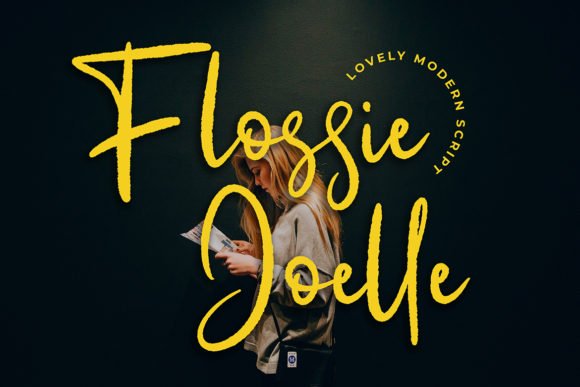
Get Inspired by the Unique Charm of Flossie Joelle Font
Have you ever been brainstorming a design project, and suddenly, a spark of creativity hits you? Maybe it’s the perfect font that makes your entire concept come together. For many designers, that moment is what drives them to create something truly special. And for those who love modern script fonts, Flossie Joelle Font is about to become their new obsession.
This beautiful font exudes a sense of elegance and authenticity, making it perfect for a wide range of projects, from wedding invitations to branding materials. Its unique charm is sure to captivate your audience and leave a lasting impression. As a designer, you’ll appreciate the versatility and flexibility of Flossie Joelle Font, which can be used in various settings, from formal events to casual gatherings.
Flossie Joelle Font Key Features
- Font Family: Flossie Joelle Font
- Font Style: Script, Handwritten
- Character Set: Latin, Cyrillic, Greek, Extended Latin
- Unique Characteristics: Includes 500+ glyphs, supports various languages, and has a natural, flowing feel
Flossie Joelle Font Review
I recently had the chance to work with the Flossie Joelle Font, and I must say it’s been an interesting experience. Here’s my honest review.
- Beautiful, hand-drawn illustrations and flourishes add a touch of elegance to any design.
- Unique and quirky feel makes it perfect for brands that want to stand out from the crowd.
- Comes with a wide range of weights and styles, making it versatile and easy to use.
- High-quality font files ensure smooth performance in various design applications.
- Some characters may not be fully compatible with certain font sizes or styles.
- Lower legibility in small text sizes may require additional adjustments.
- May not be suitable for professional or formal designs, as its playful nature may be seen as unprofessional.
The Flossie Joelle Font is perfect for creatives who want to add a touch of whimsy and personality to their designs. While it has its limitations, the unique charm and versatility of this font make it a great addition to any designer’s toolkit.
Flossie Joelle Font Practical Application Guide
Use Flossie Joelle in conjunction with other elegant fonts to create a sophisticated look.
Experiment with different font sizes and styles to add visual interest.
Consider using Flossie Joelle for titles, headings, and other prominent text elements.
Flossie Joelle is perfect for:
Branding and marketing materials
Digital and print publications
Social media graphics and posts
Lato is a sans-serif font that is clean, modern, and highly legible. It is ideal for use in body text, headings, and titles where a clear and concise message is required. Lato is a versatile font that works well in both print and digital media.
Compared to Flossie Joelle Font, Lato has a more minimalist and contemporary feel, while Flossie Joelle Font has a softer, more feminine touch.
Playfair Display is a luxurious, high-end serif font that is perfect for use in titles, headings, and other display text where a sense of elegance and sophistication is required. It is ideal for use in high-end branding, advertising, and editorial projects.
Compared to Flossie Joelle Font, Playfair Display is more formal and luxurious, while Flossie Joelle Font is more playful and whimsical.
Montserrat is a geometric sans-serif font that is highly legible and versatile. It is ideal for use in body text, headings, and titles where a clear and concise message is required. Montserrat is a great choice for use in digital media, including websites, apps, and social media.